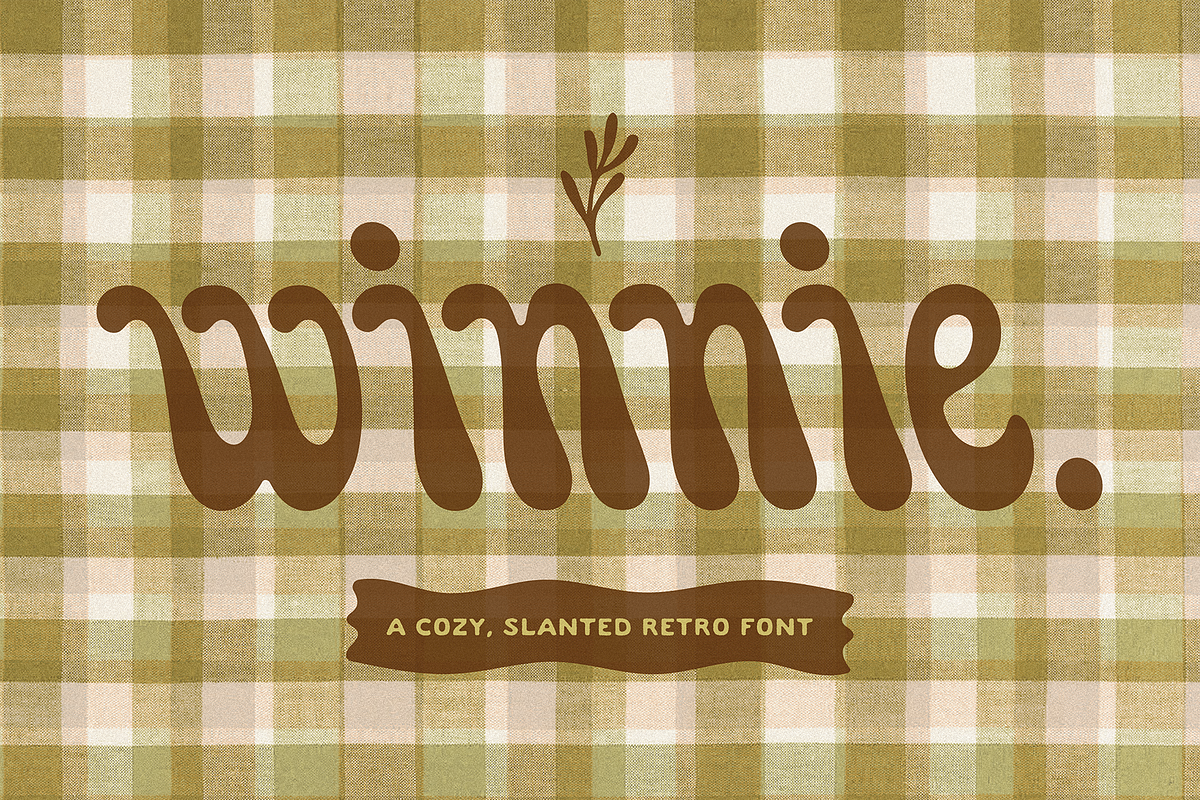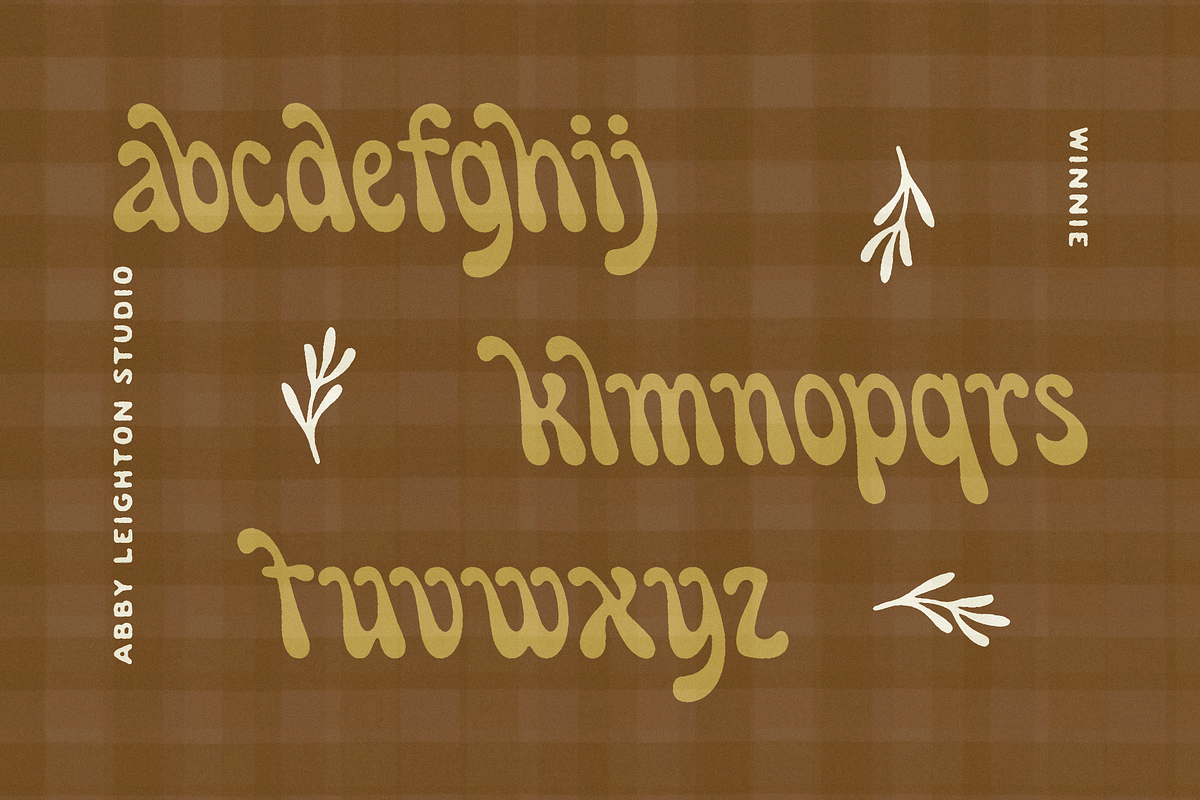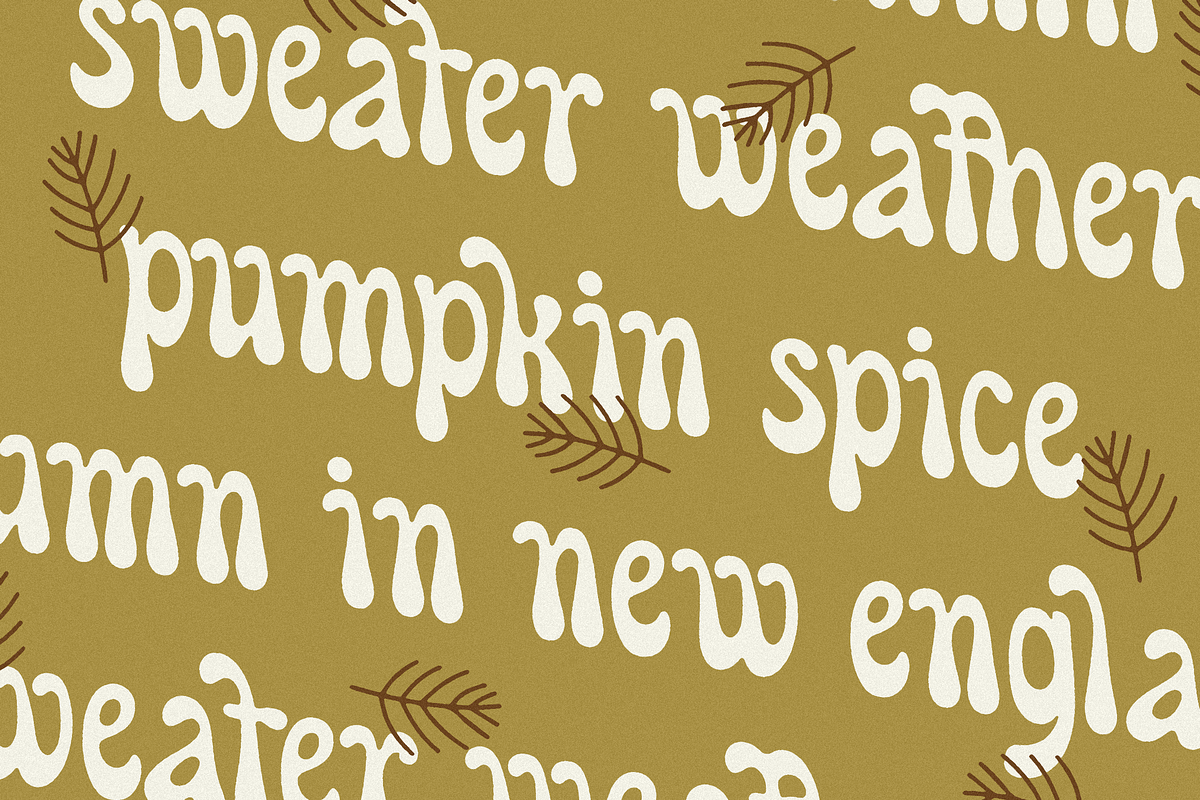
WINNIE by Abby Leighton
Winnie Display is a cozy, slanted and 70s-inspired typeface. Retro and playful, it's perfect for that unique vintage touch in your project.